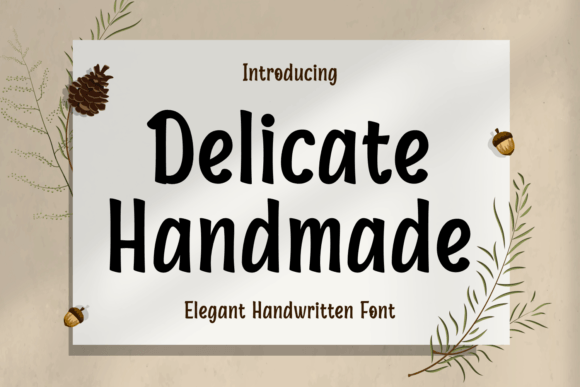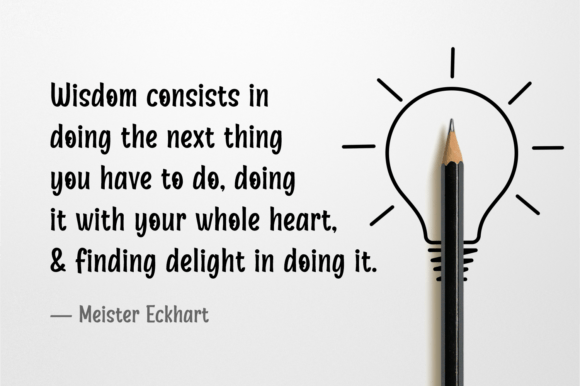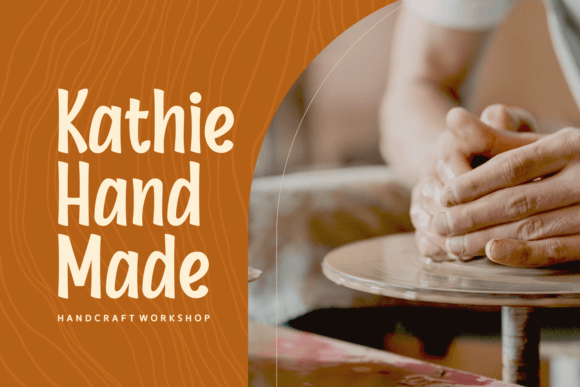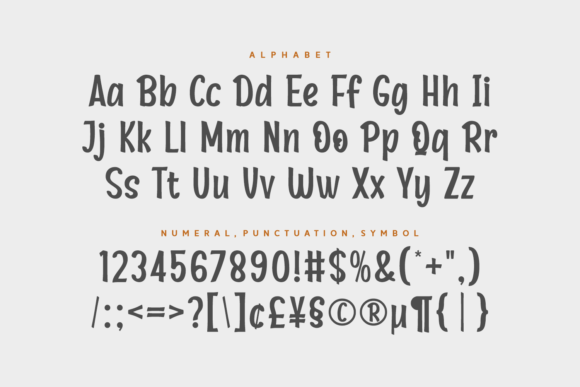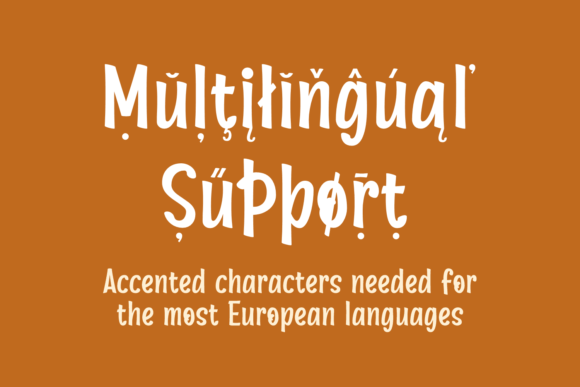
Enter the Delicate Handmade Font – a stunning script font that brings a touch of elegance and sophistication to any project. With its flowing forms and balanced spacing, this font is the perfect companion for modern designs. Its clear letterforms and beautiful handwritten feel make it a valuable asset for designers looking to add a personal touch to their work.
Whether you’re working on a wedding invitation, a branding project, or a blog post, the Delicate Handmade Font is sure to make your project shine.
Delicate Handmade Font Key Features
- Font Family: Delicate Handmade, a unique, handwritten font designed to add a touch of elegance to your designs.
- Character Set: Includes uppercase and lowercase letters, numbers, punctuation, and special characters, making it suitable for various applications.
- Unique Characteristics: Features subtle variations in letterform and stroke width, giving it a natural, handwritten feel that’s perfect for creative and artistic projects.
Delicate Handmade Font Review
I recently had the chance to work with the “Delicate Handmade Font” and I must say, it’s a unique and beautiful addition to any design project. Here are some of its standout features: ✨
- High-quality texture: The font’s handmade texture gives it a natural, organic feel that’s perfect for design projects where you want to convey a sense of warmth and character.
- Flexibility: The font is available in various weights and styles, making it easy to use in a wide range of design scenarios.
- Unique charm: The font’s imperfections and irregularities add a touch of personality to your design, setting it apart from more generic fonts.
- Limited legibility: The font’s handmade texture can make it difficult to read, especially in small sizes or at a distance.
Overall, I’m impressed by the “Delicate Handmade Font” and its potential to add a touch of elegance and sophistication to design projects. While it may not be suitable for all design scenarios, it’s definitely worth considering for projects where you want to create a unique and memorable visual experience.
Tips for Getting the Most Out of Delicate Handmade Font
To get the most out of Delicate Handmade Font, try the following:
- Use the font for titles, headings, and other prominent text elements.
- Pair the font with a clean and simple background to let the font take center stage.